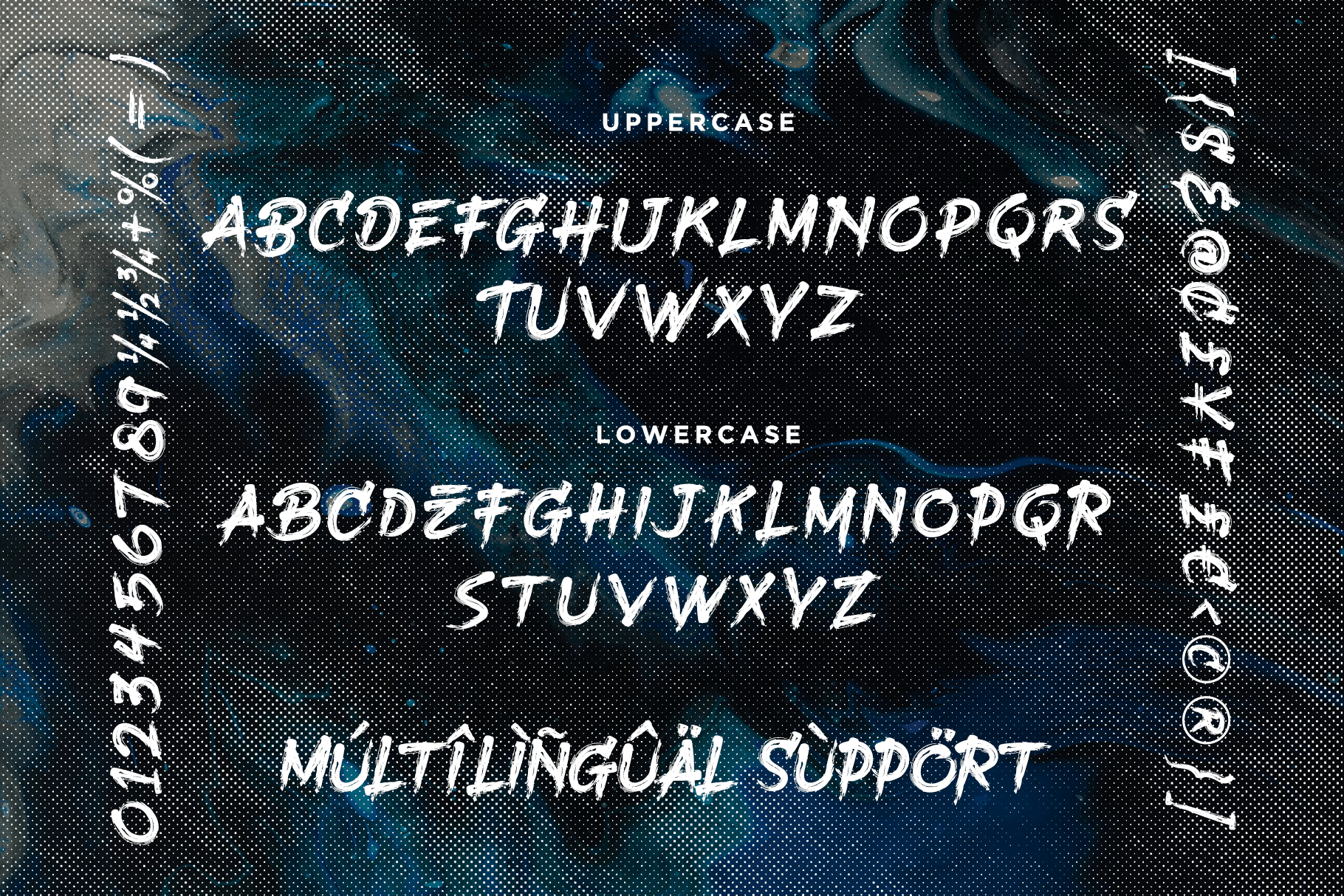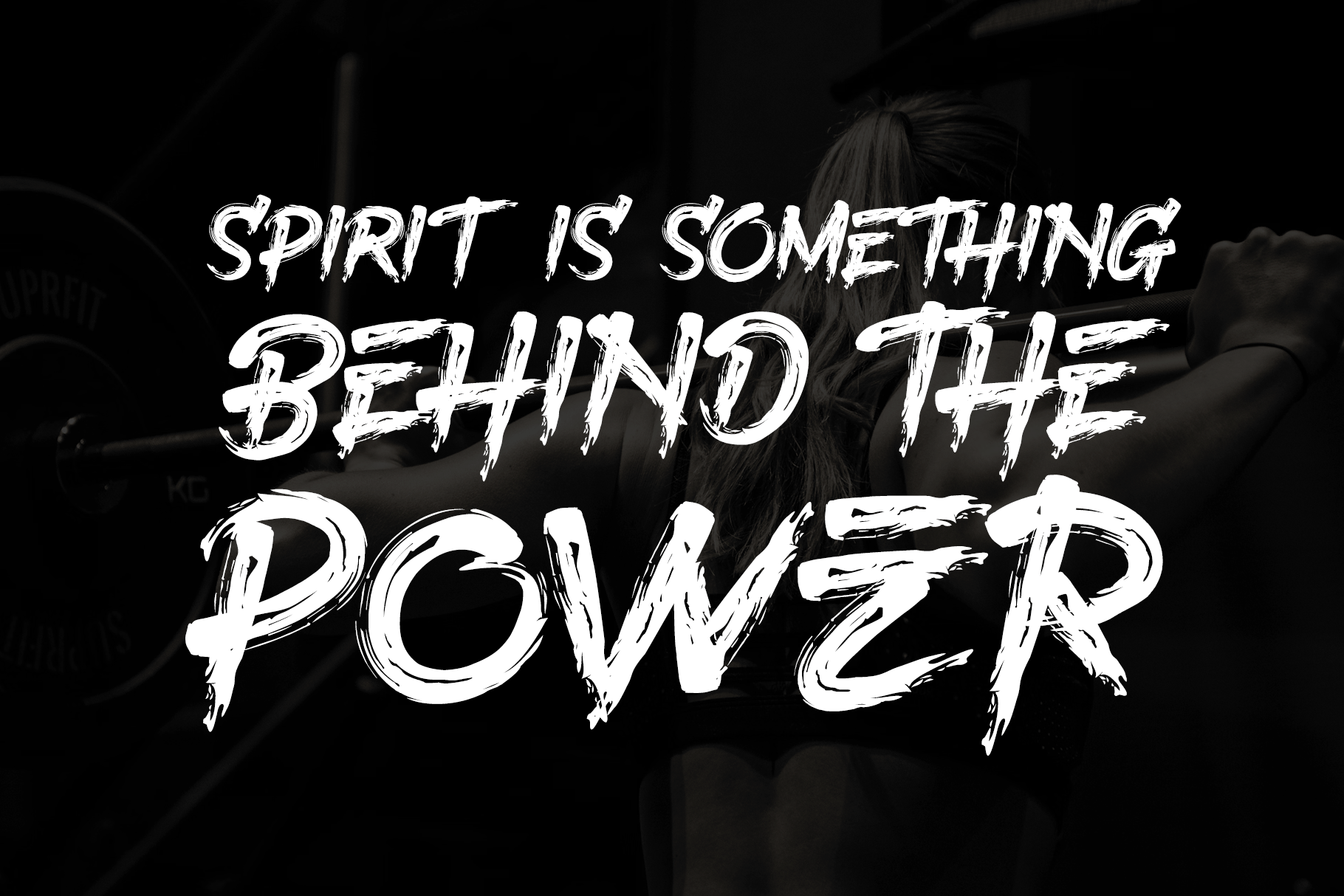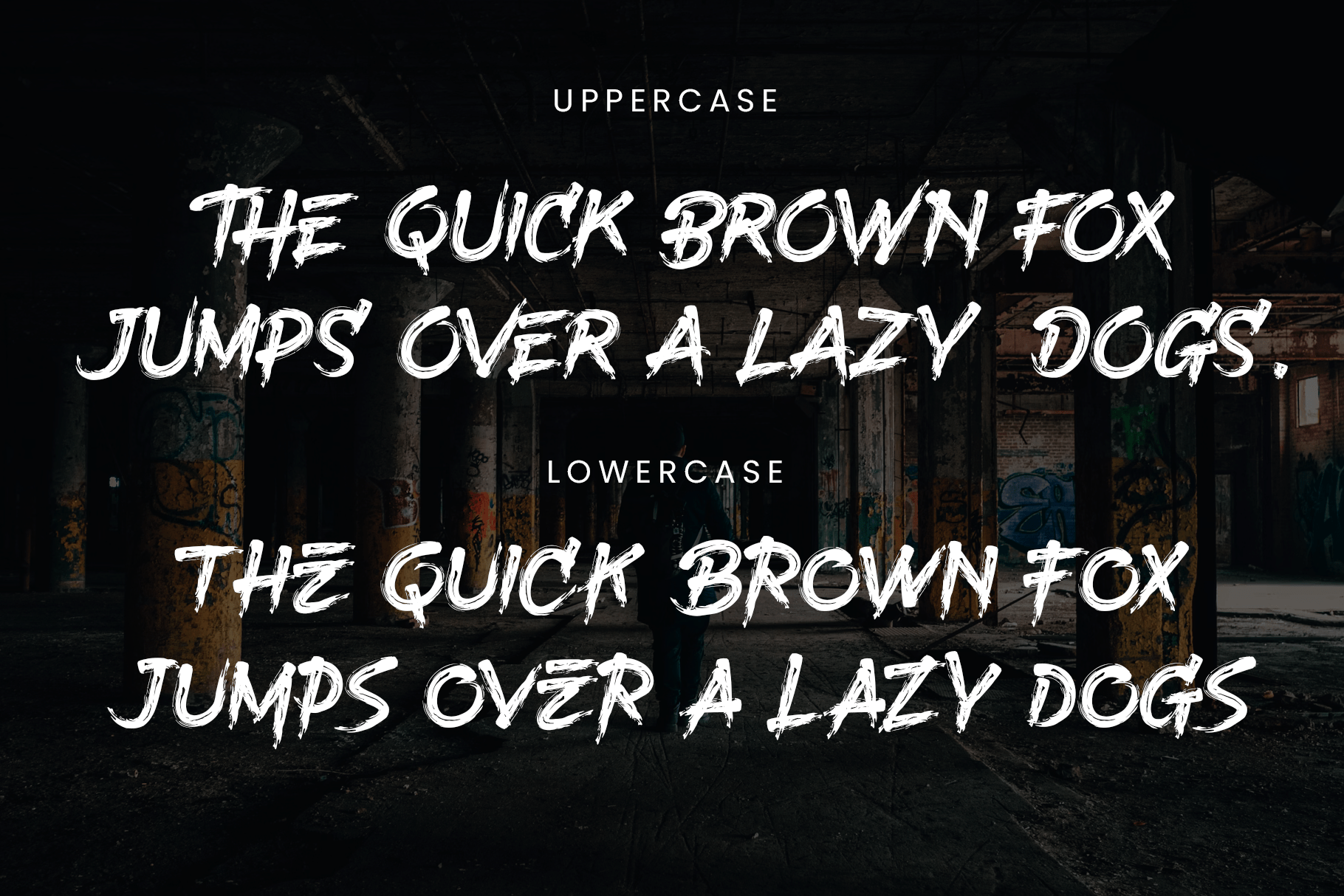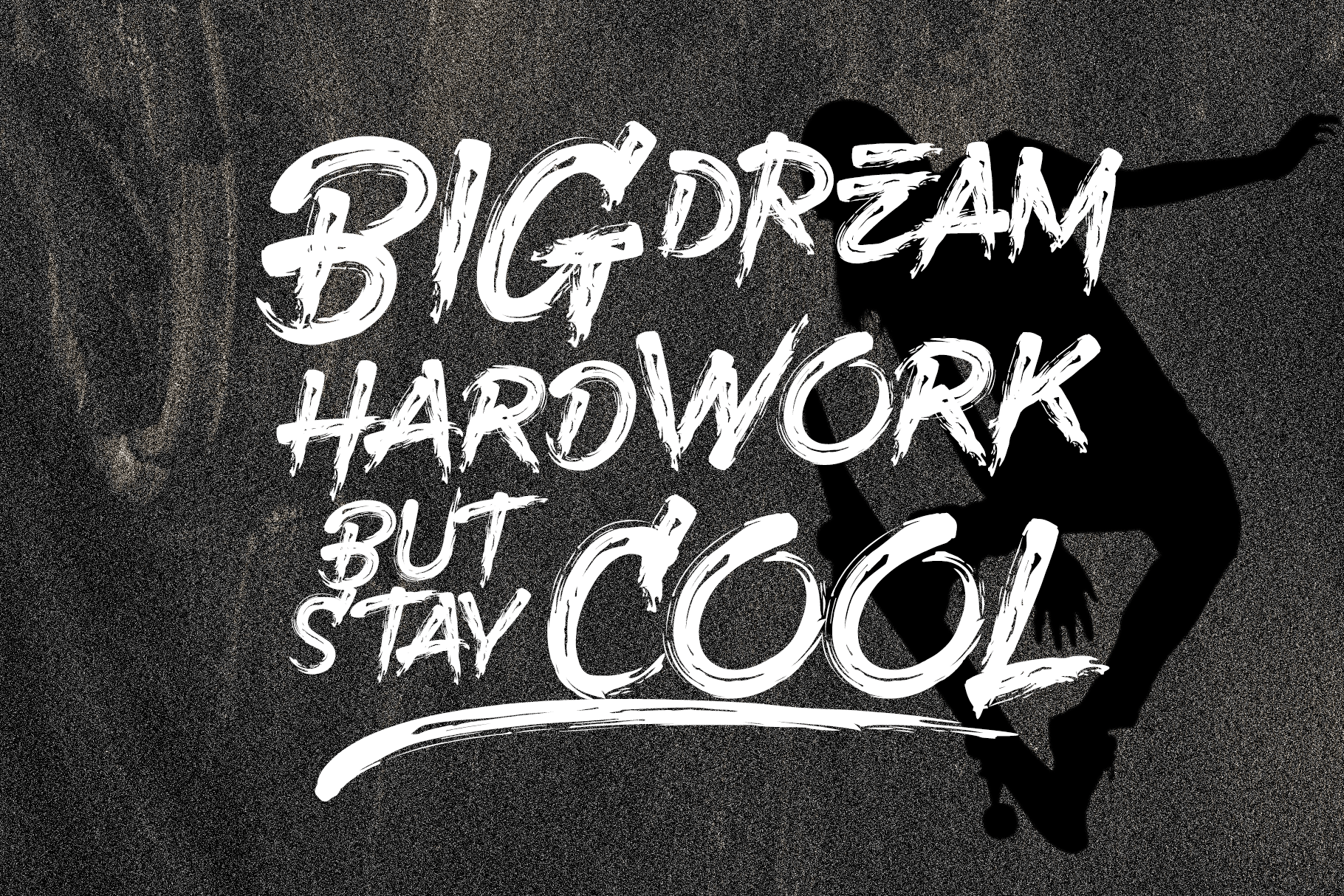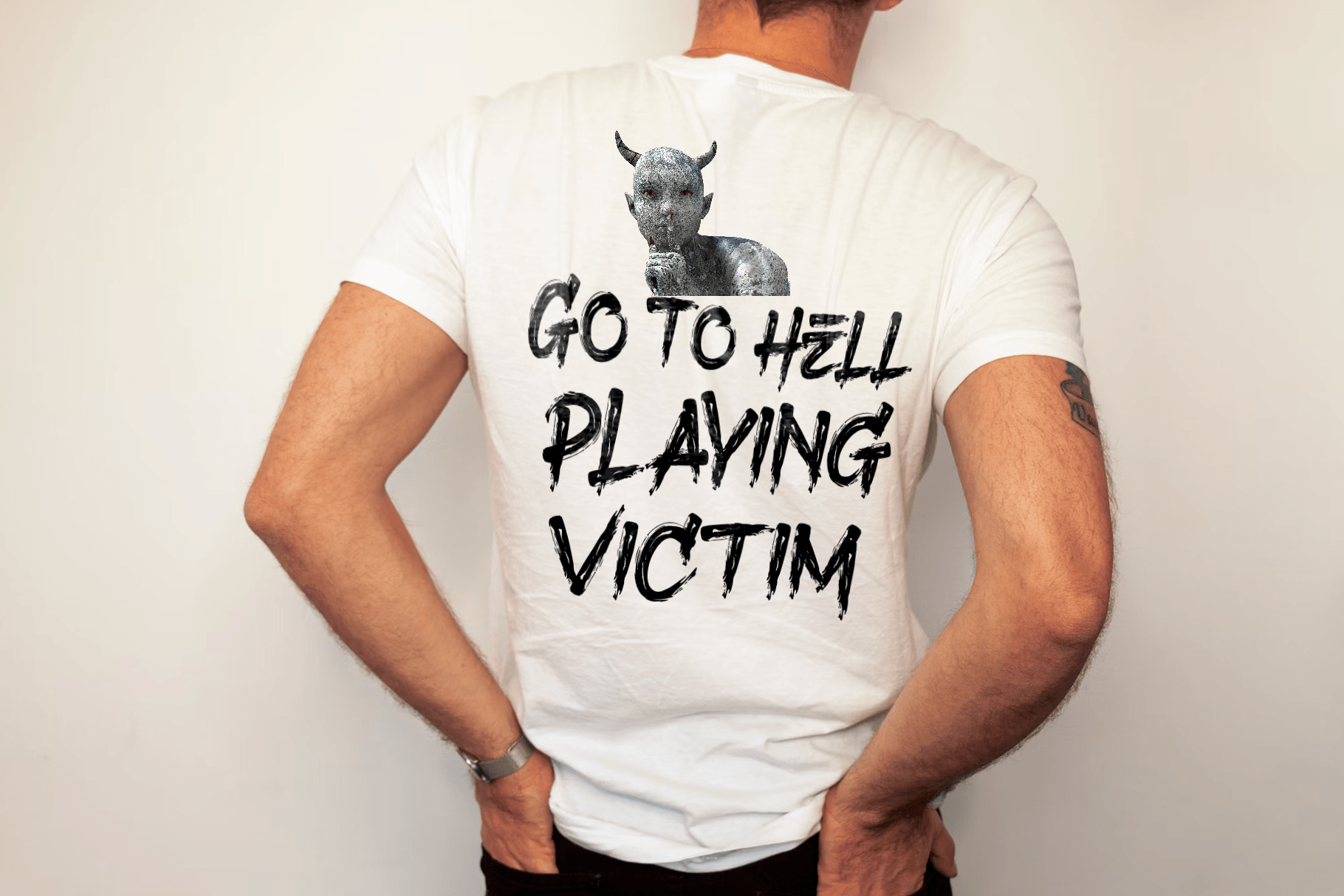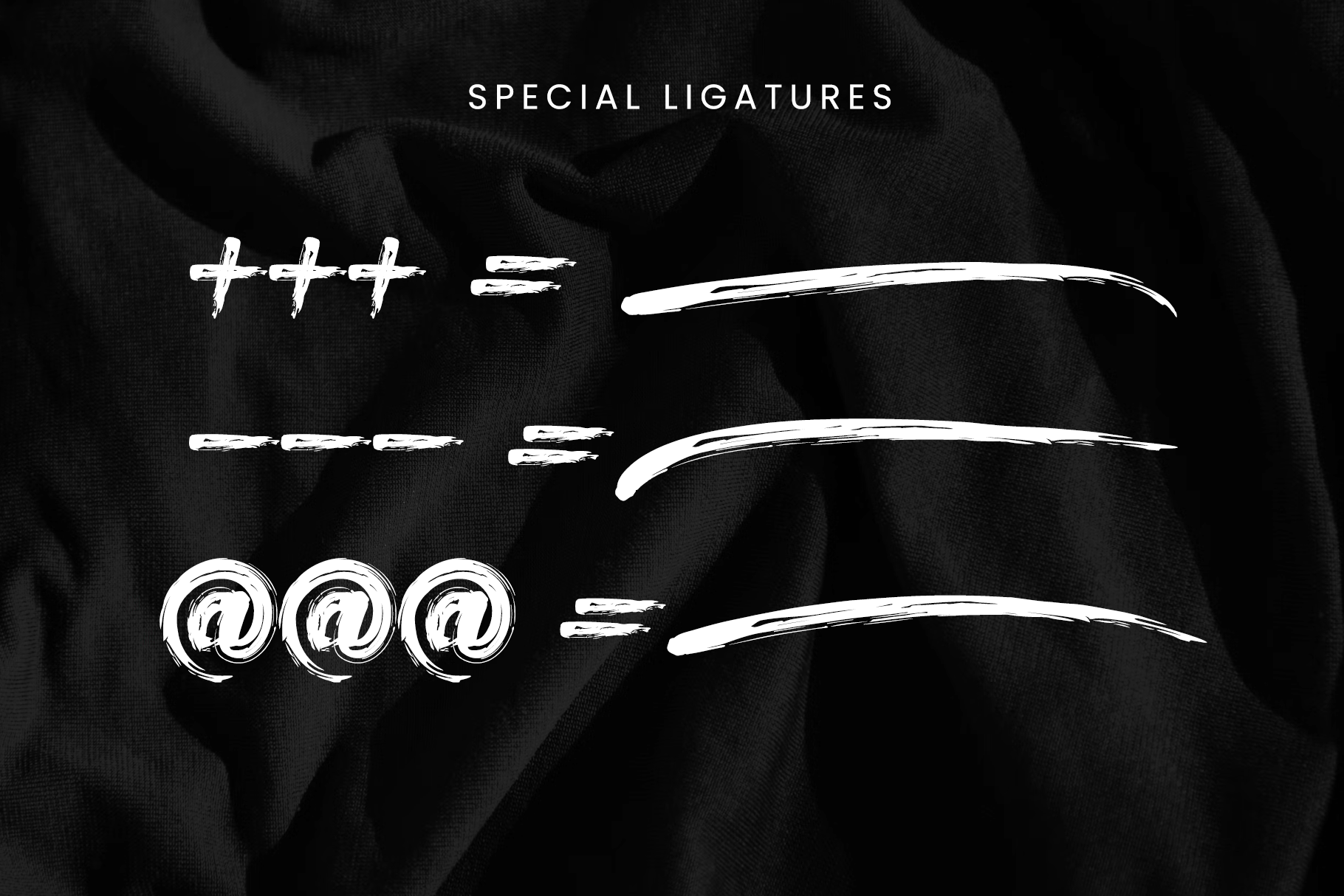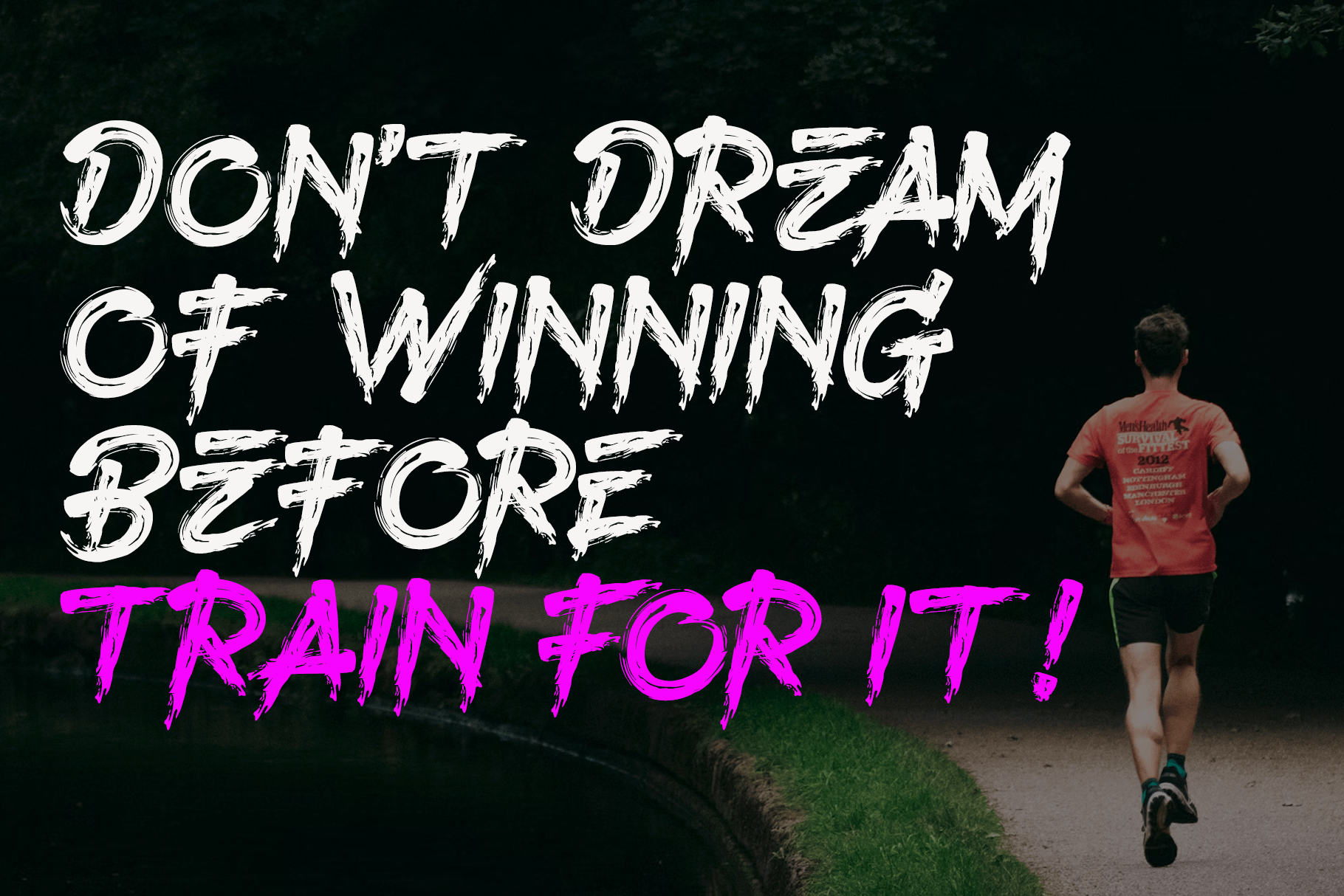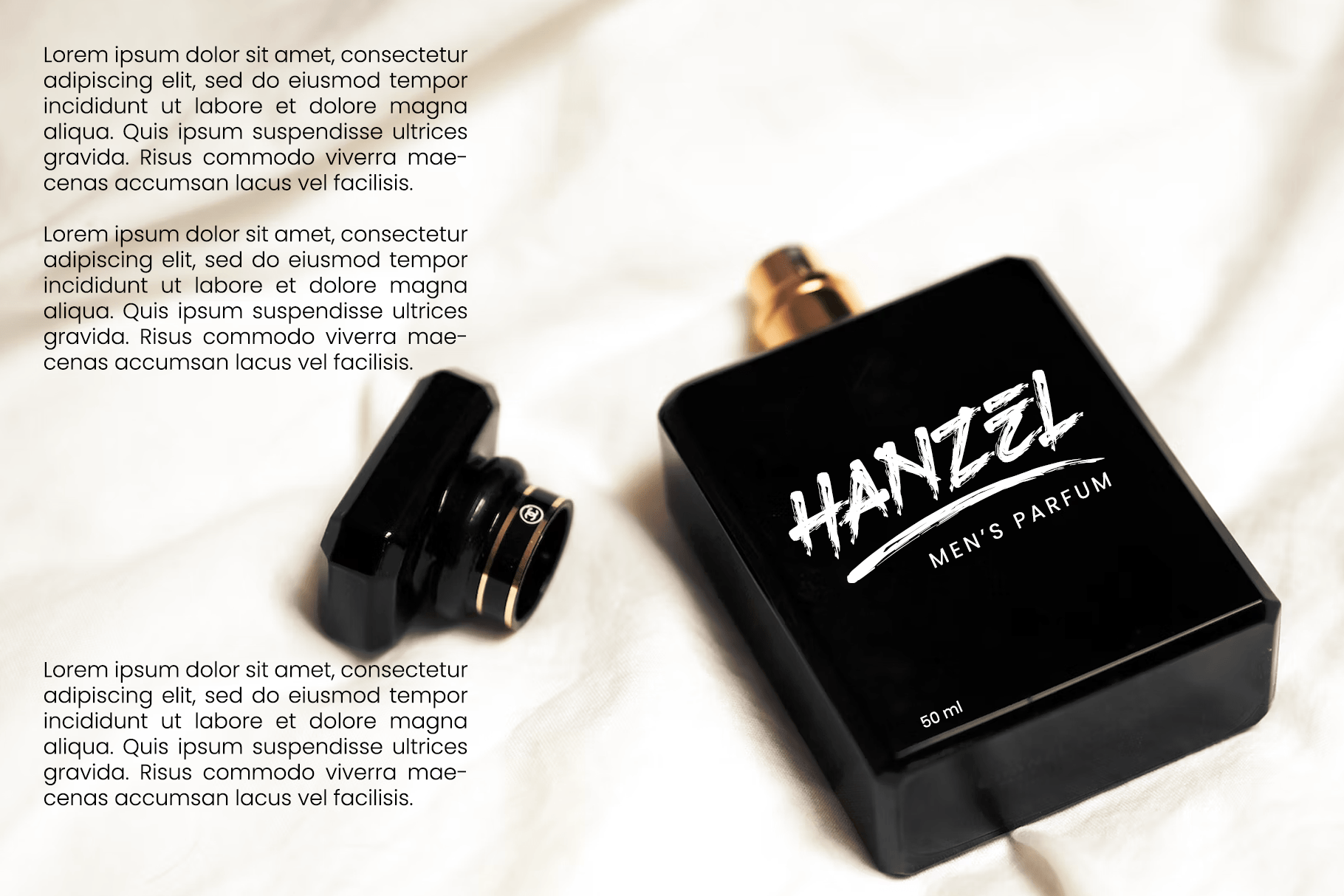
- Heborn
Heborn is the brush display typeface with simple brush textured and all caps style looks and feel nice balanced.
Honestly it works perfectly for headlines, logos, posters, packaging, T-shirts and much more for branding and anything designs.
- Regular and Slanted (Italic) Version
- Character set A-Z in All Caps Style
- Ligatures in Uppercase
- Numerals & Punctuation
- Accented Characters
- Multiple Languages Supported